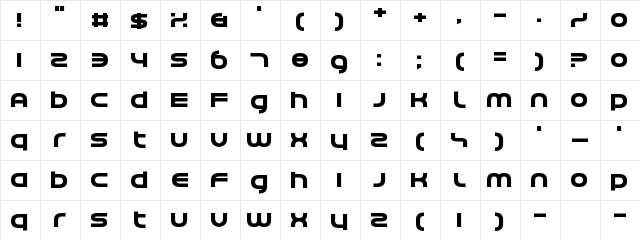
Cerulean Nights Regular
Design Context for Cerulean Nights Typeface
Cerulean Nights offers clean, dependable letterforms without strong stylistic allegiance, making it a practical choice for designers who need flexibility.
Pro Tip: Pair Cerulean Nights with a font of contrasting weight or personality to build a more expressive typographic hierarchy.